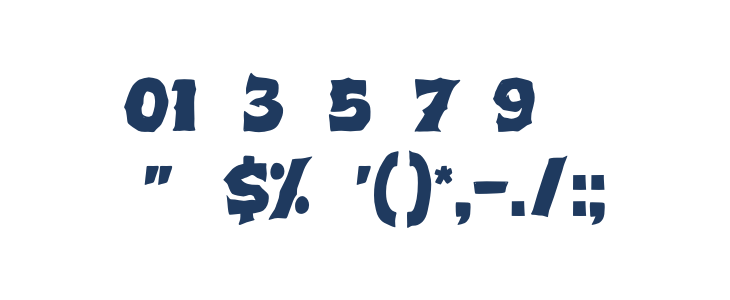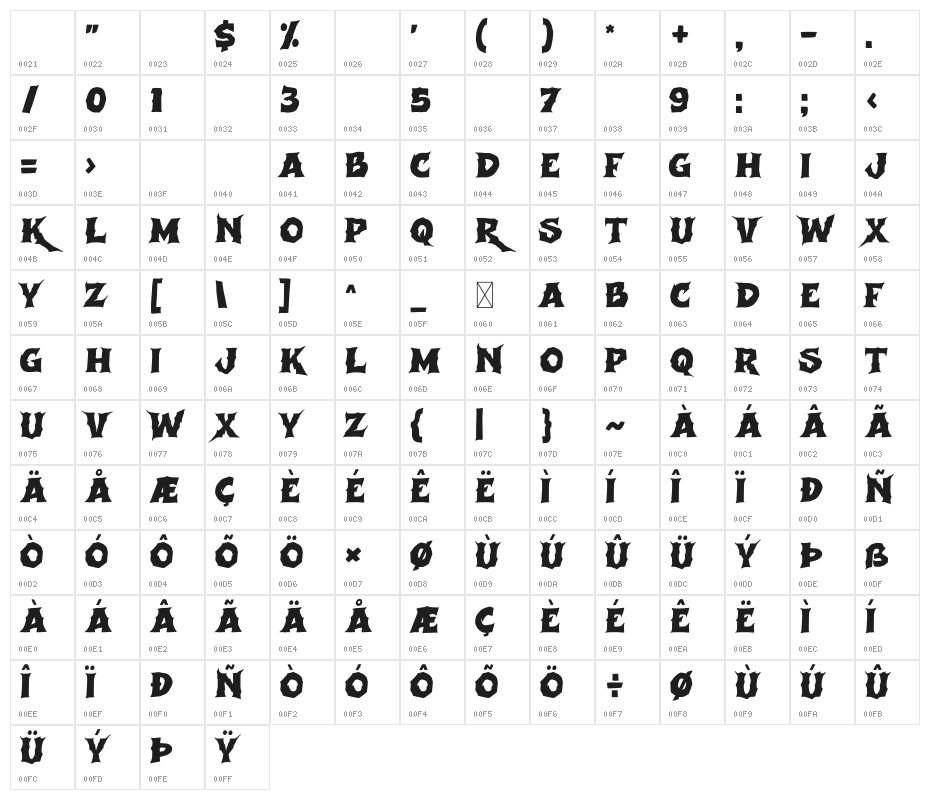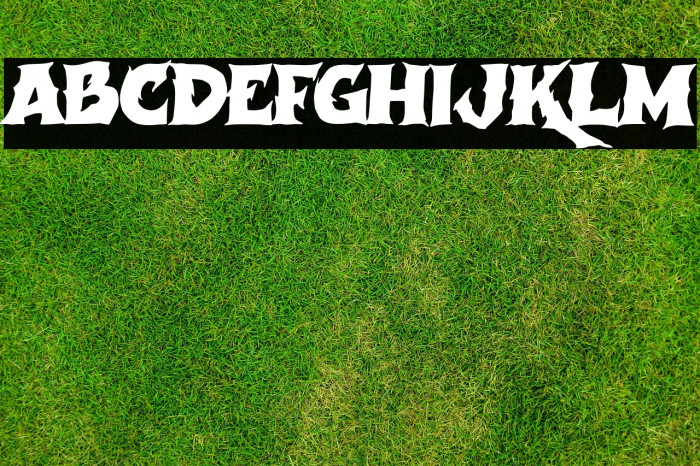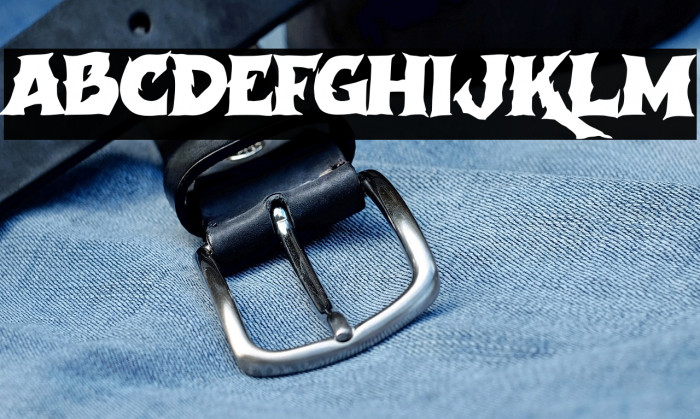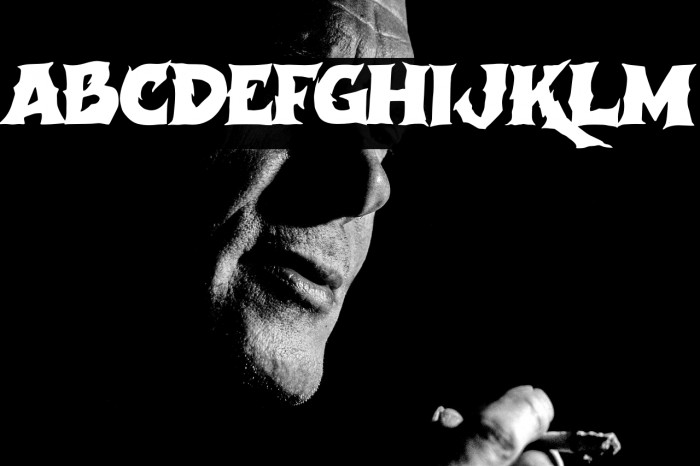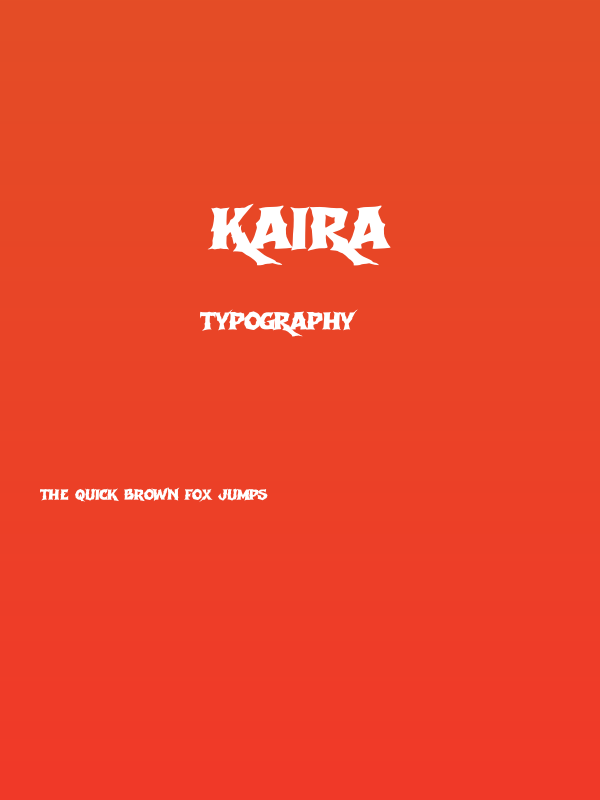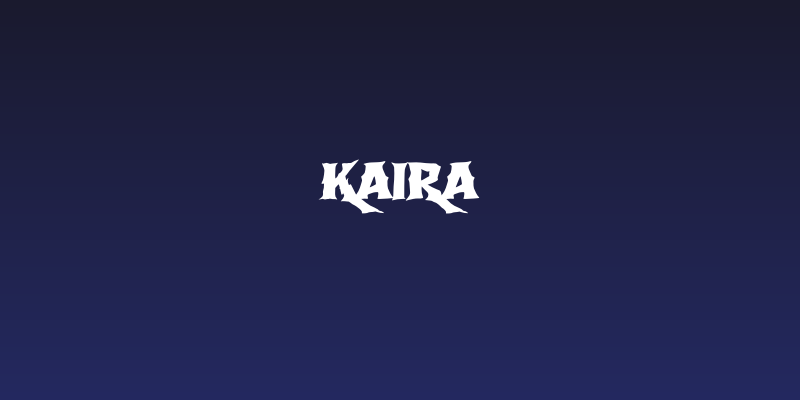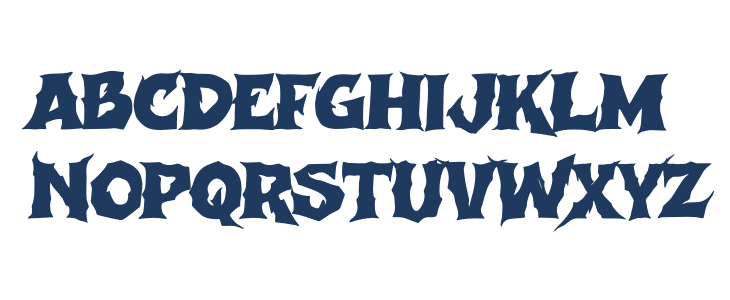
Kaira Font
Kaira Description
This font features a bold and aggressive style with sharp, angular edges and a slightly distressed appearance. The characters are heavily stylized, giving off a rebellious and edgy vibe. The uppercase and lowercase letters maintain a consistent design, with each character exhibiting unique cuts and slashes that add to the overall rugged aesthetic. The numbers and special characters follow the same design principles, ensuring a cohesive look across all elements. This font is particularly eye-catching and demands attention, making it ideal for projects that require a strong visual impact.
| Proposed Projects | Ideal for music album covers, posters, video game titles, and branding for edgy or alternative products. |